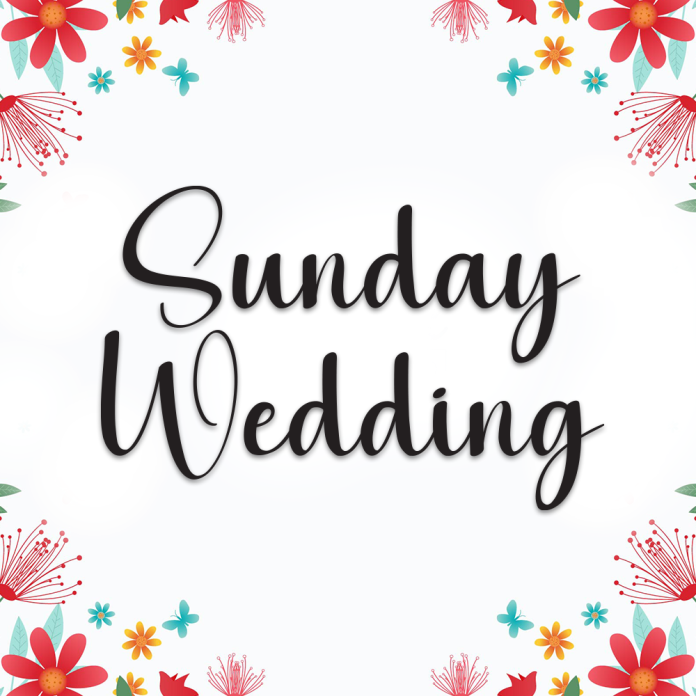
Sunday Wedding is a graceful and romantic handwriting font, designed to capture the elegance and intimacy of special moments. Its soft, flowing strokes resemble the beauty of handwritten vows, making it perfect for heartfelt designs.
Elegant and smooth handwriting style
Perfect for wedding invitations, luxury branding, and love letters
Neat yet natural letterforms for an authentic feel
Bring timeless charm to your designs with Sunday Wedding.